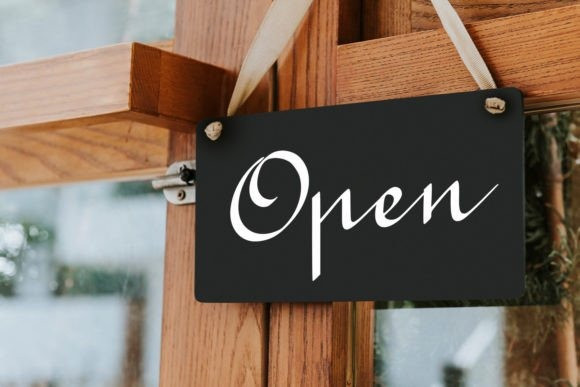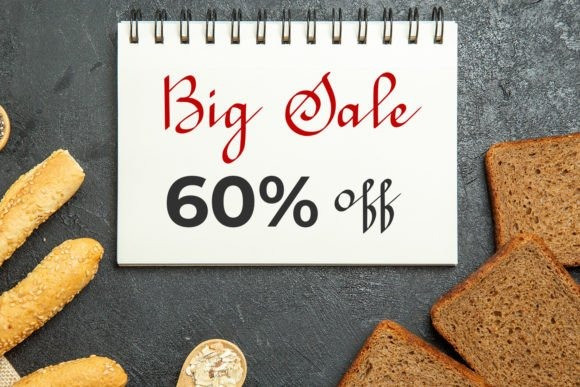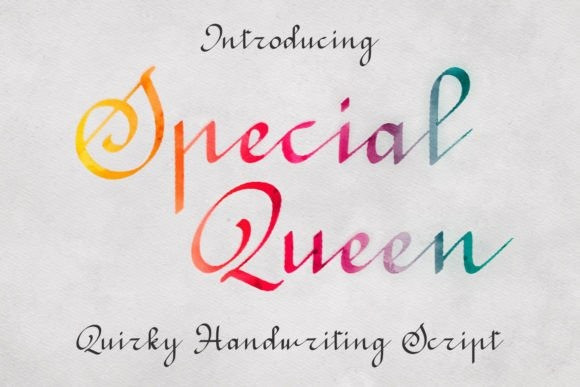
Special Queen Font
Special Queen Font is a natural handwriting font. It is great for t-shirt designs, quotes, mugs, tote bag designs, cards, banners, social media, and other craft projects that need a simple but elegant style. Ligatures make this font look so natural.